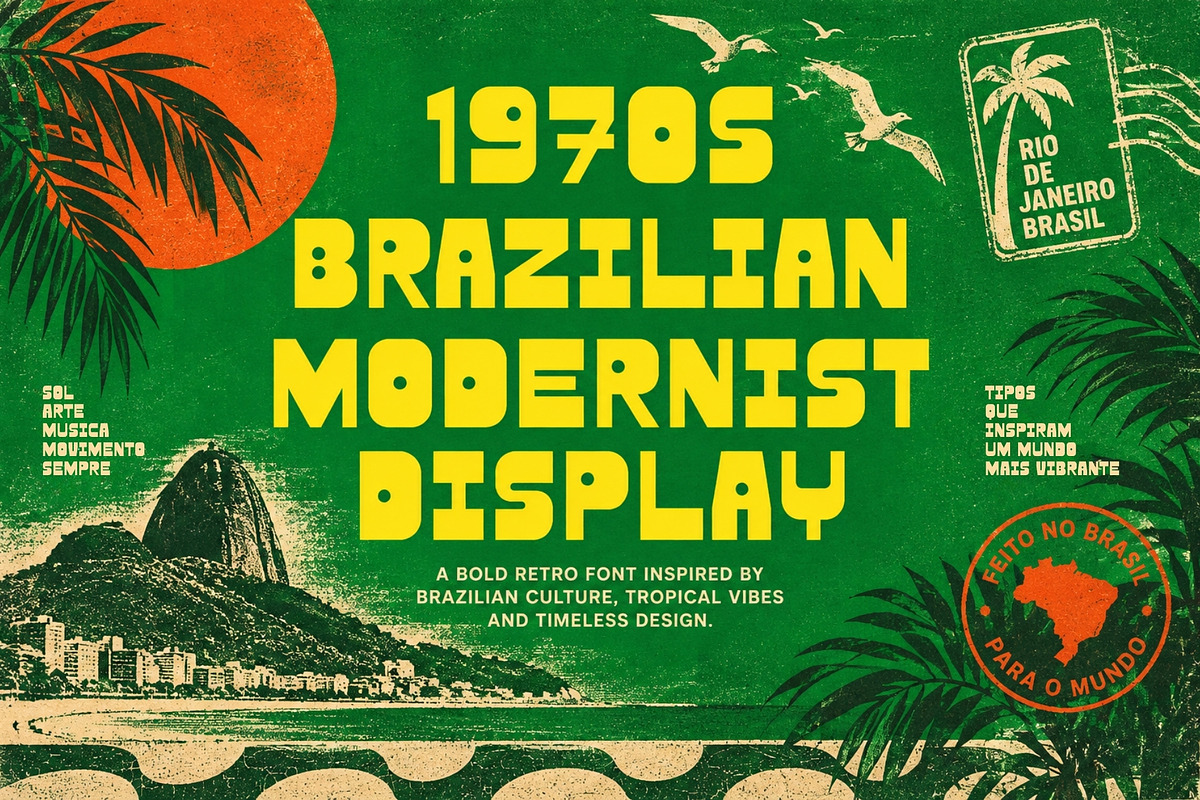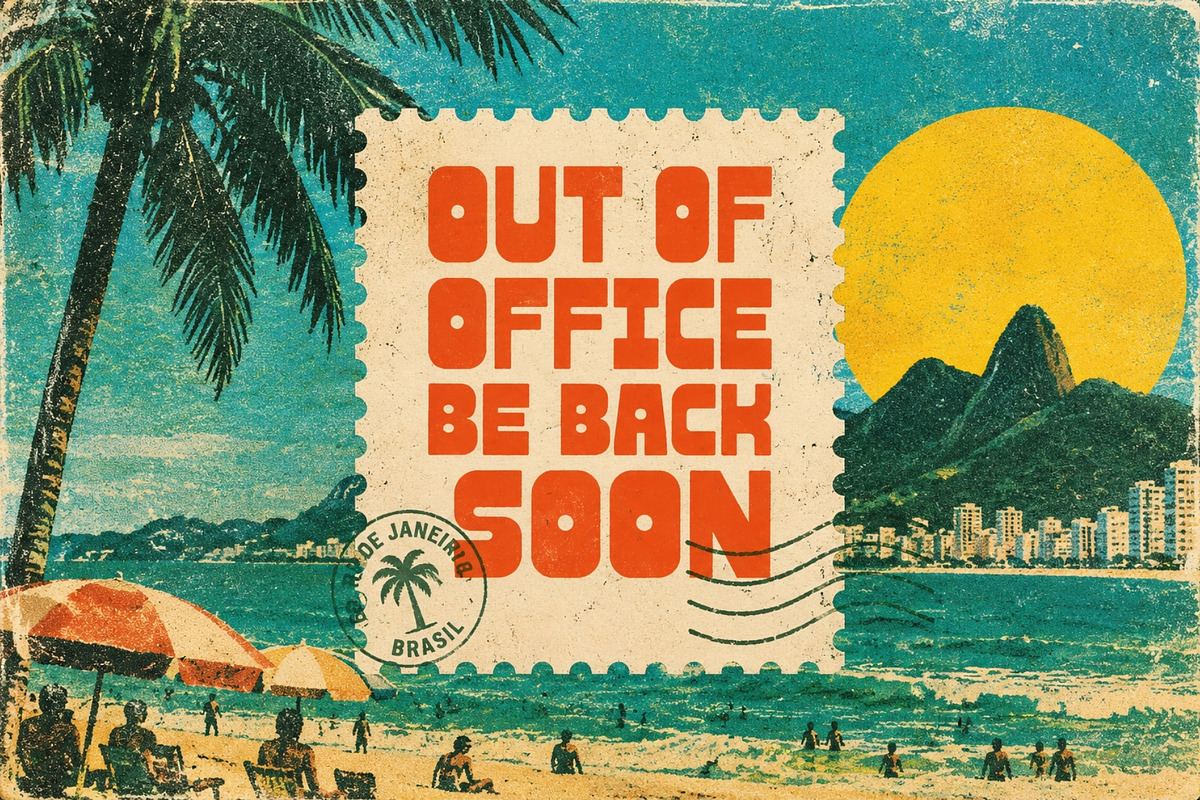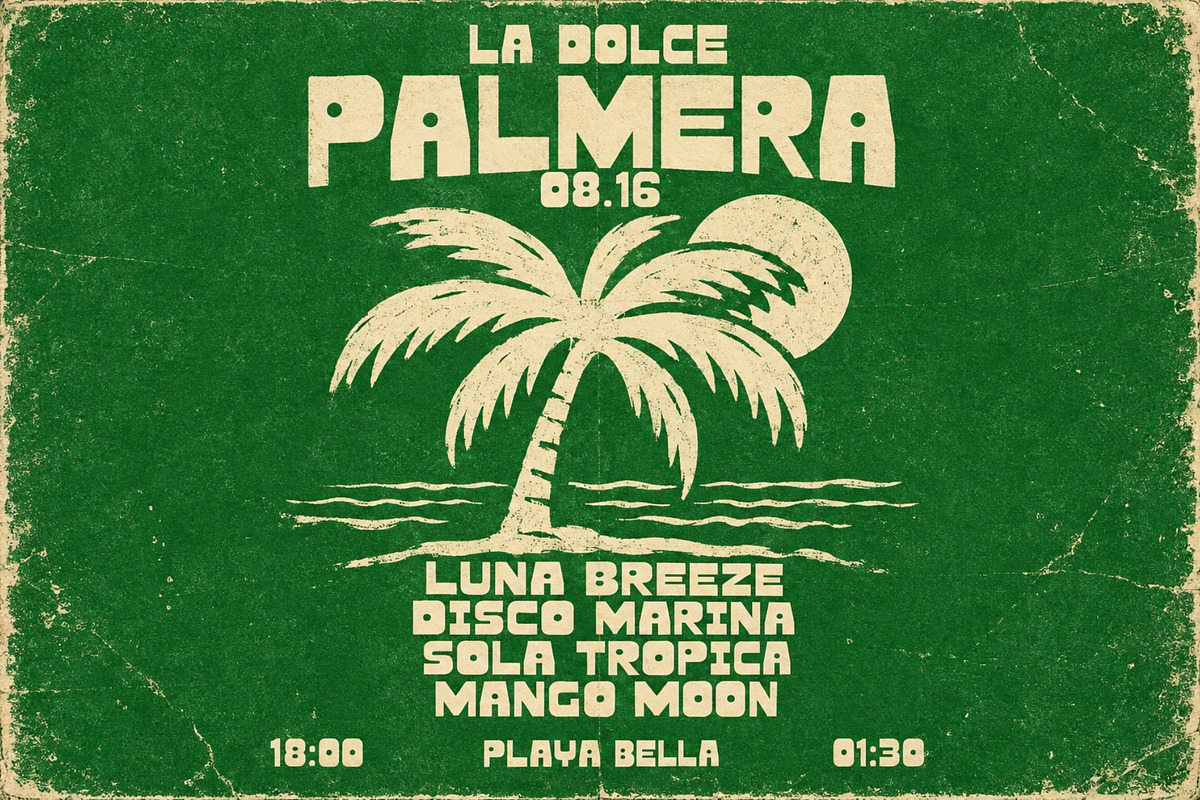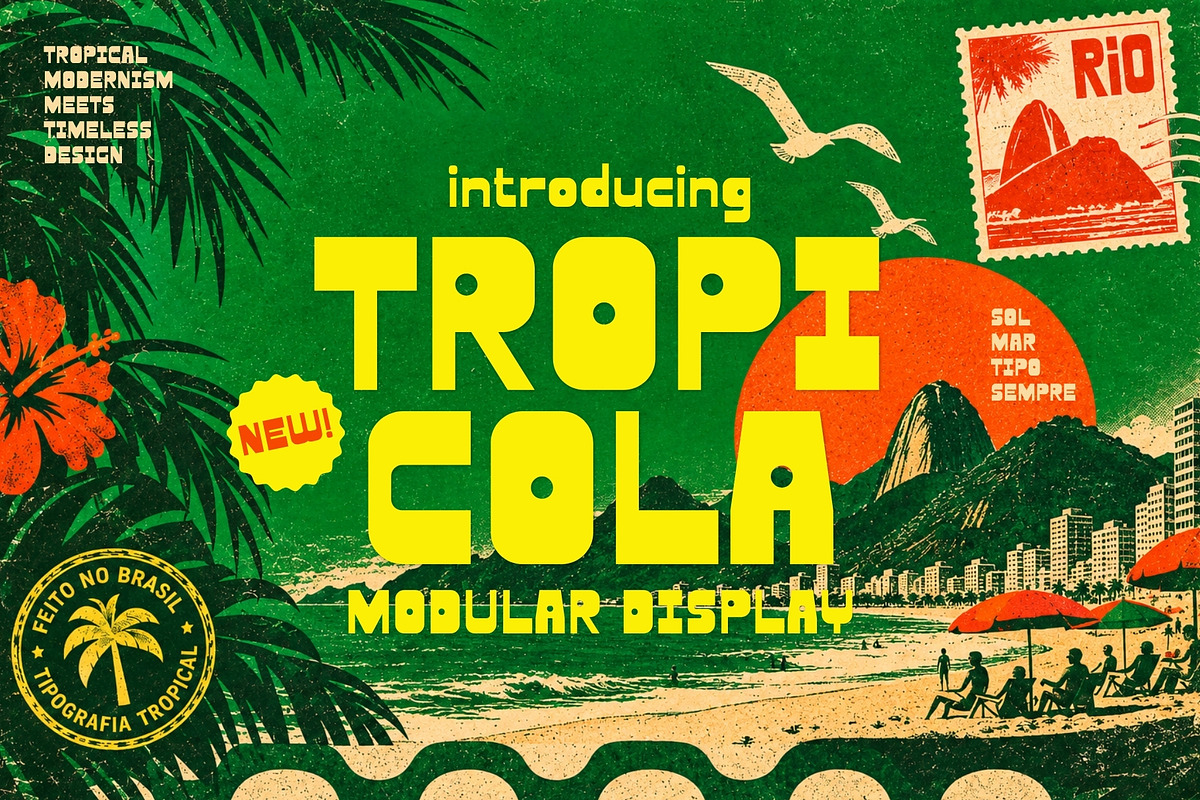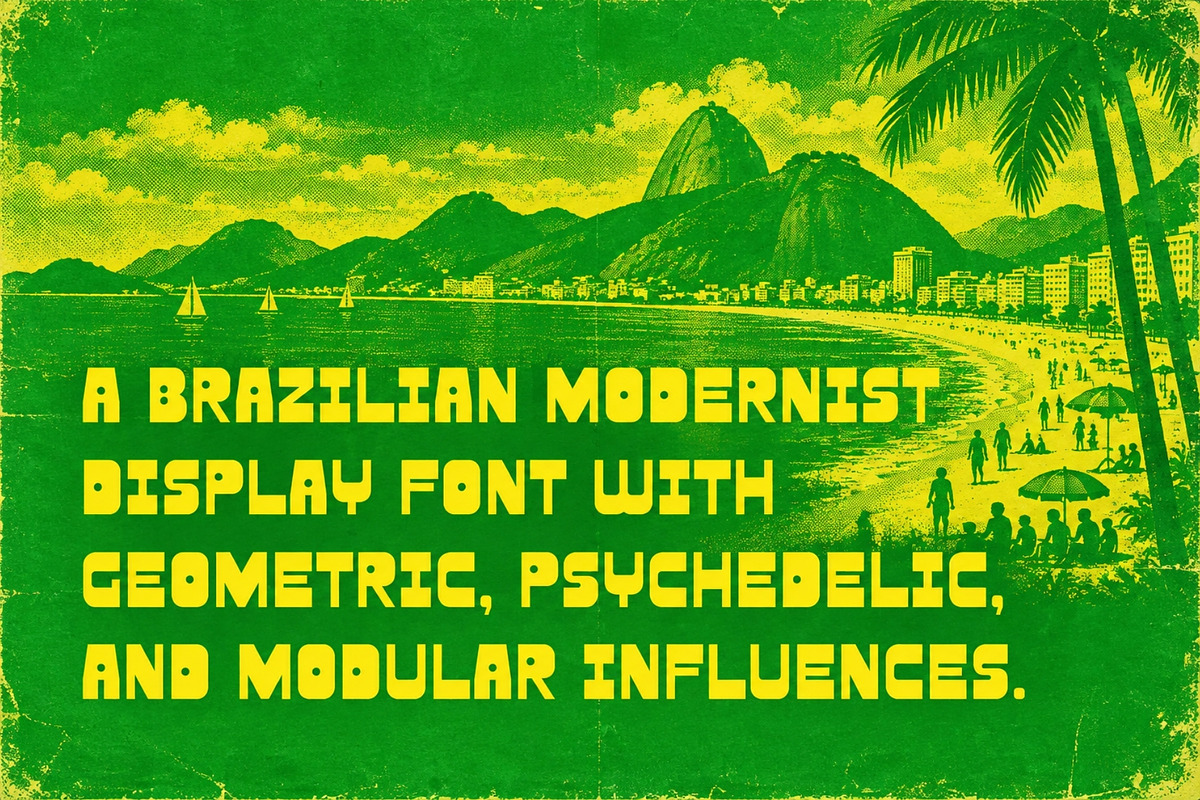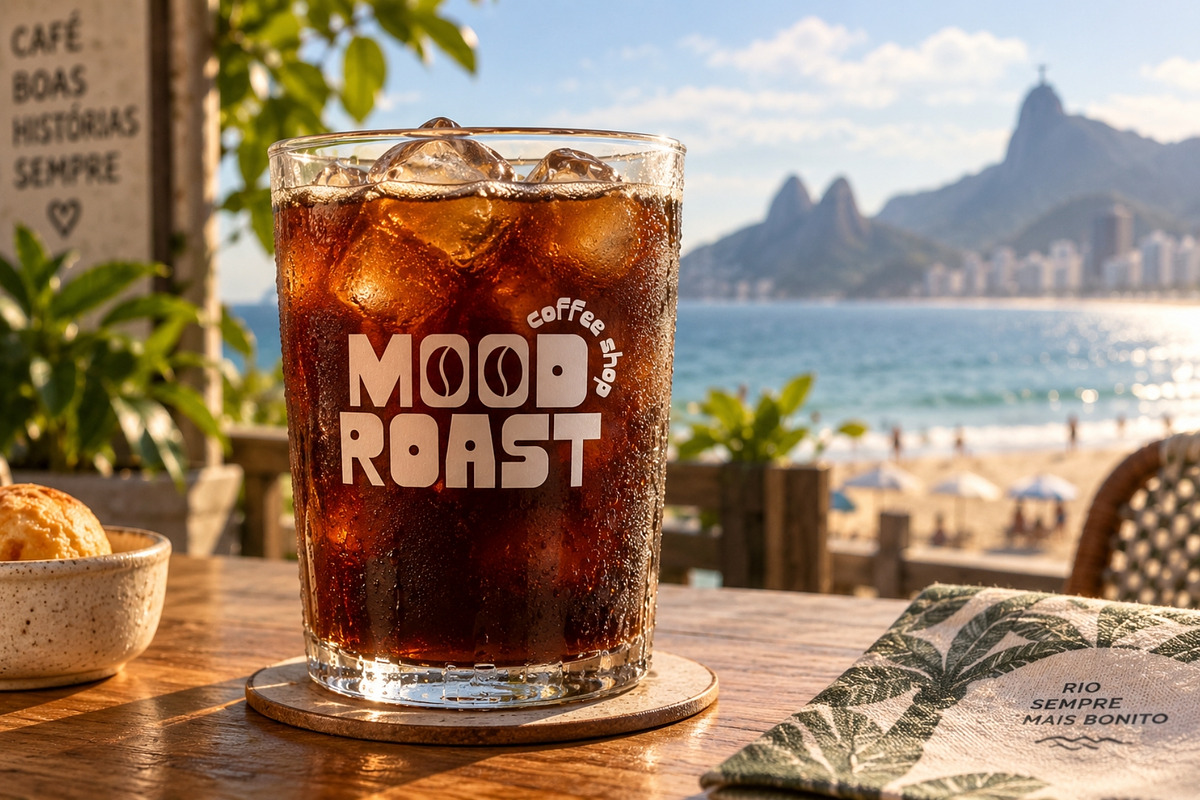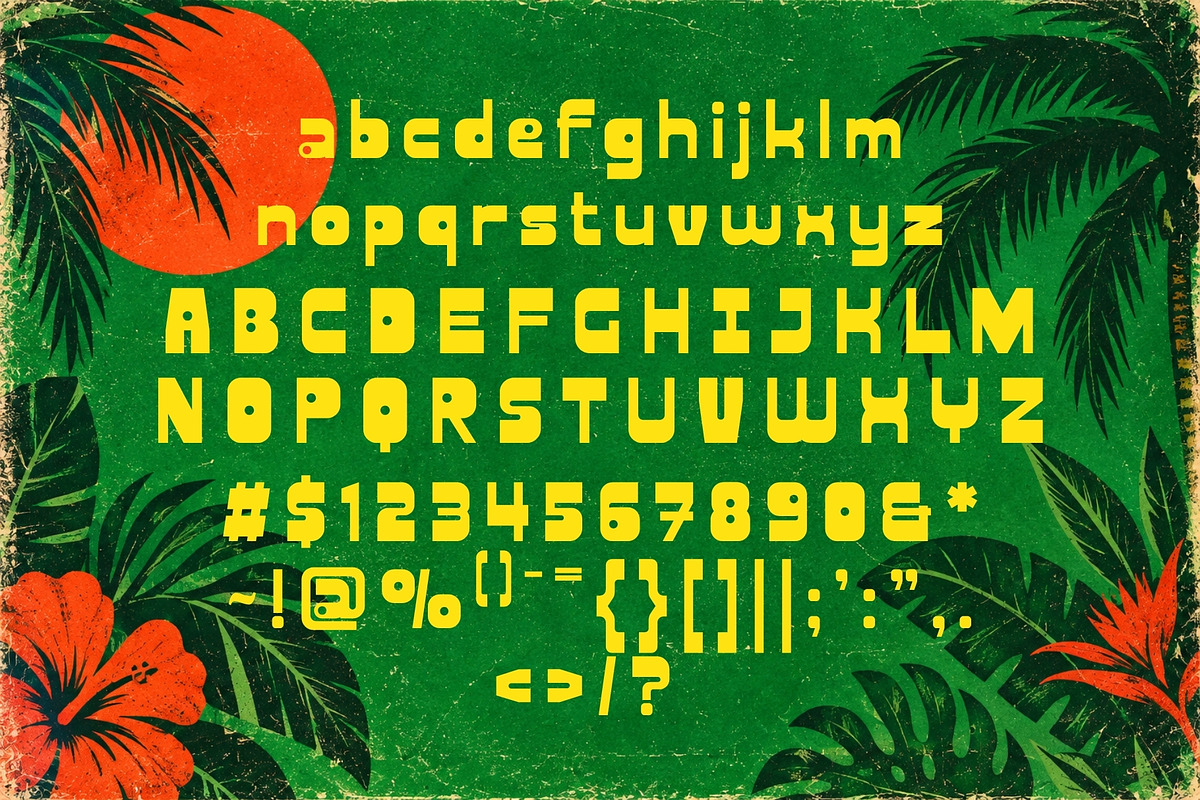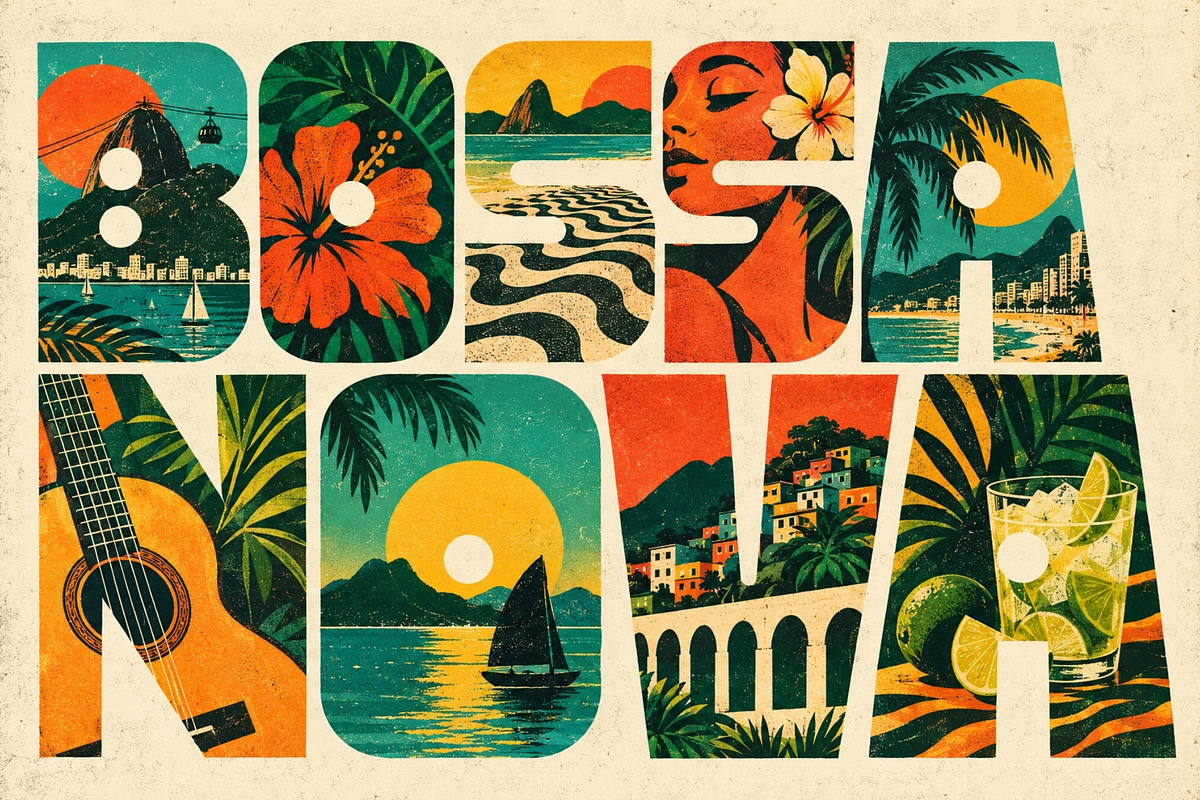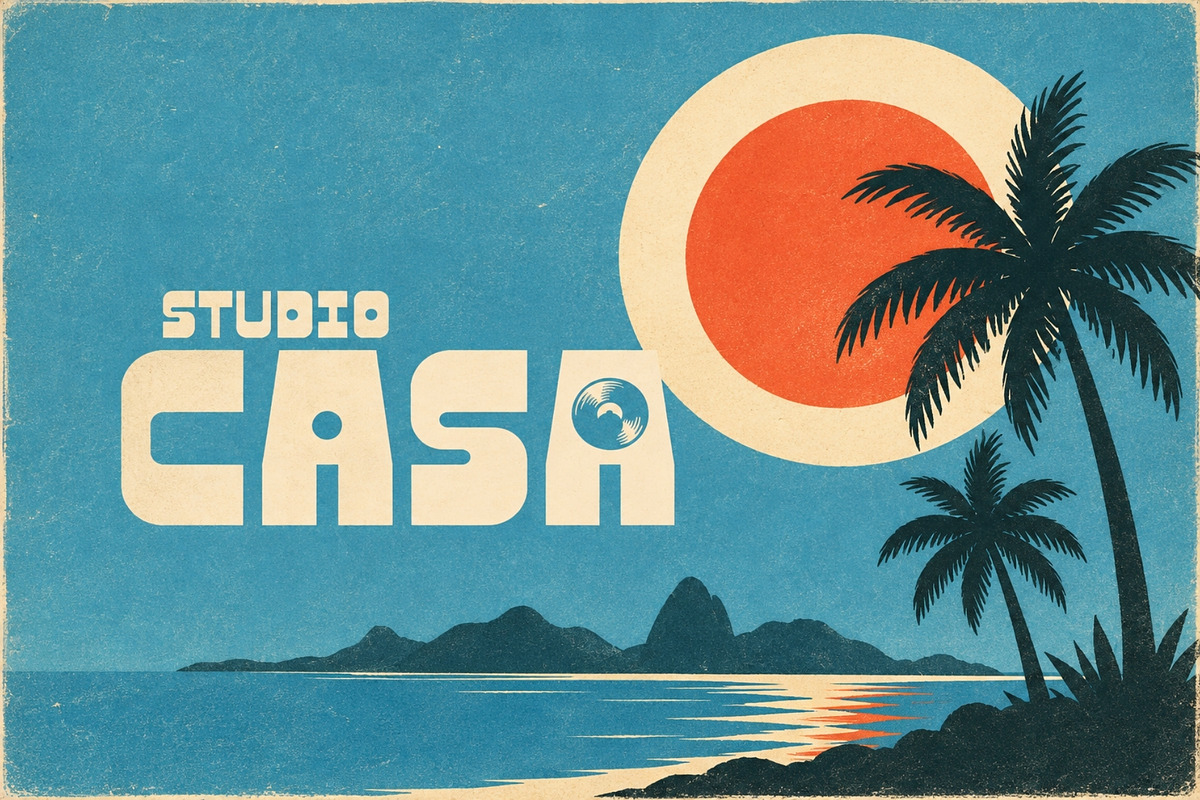
Tropicola - 1970's Brazilian Display
Meet Tropicola, a bold 1970s-inspired display typeface rooted in Brazilian modernism, tropical graphic design, and the expressive visual culture of vintage posters and record sleeves.
Built from chunky geometric forms, Tropicola balances heavyweight construction with an unexpectedly playful rhythm. Rounded corners, circular counters, oversized cutouts, asymmetric details, and sculptural negative space soften its blocky silhouette and give every letter a distinctive, almost architectural personality.
The result feels somewhere between Brazilian modernist poster design, psychedelic typography, Bauhaus experimentation, tropical pop art, and 1970s editorial graphics. It is bold without feeling aggressive, geometric without becoming cold, and retro without looking like a simple reproduction of the past.
Tropicola is designed for projects that need typography to become part of the artwork itself. Its unusual forms work especially well across posters, logos, album covers, record sleeves, fashion branding, packaging, editorial layouts, advertisements, restaurant identities, festival graphics, apparel, social media campaigns, and travel-inspired designs.
At large sizes, its oversized counters and unexpected internal shapes create striking compositions of their own. Pair Tropicola with saturated tropical color, grainy photography, collage, abstract illustration, vintage textures, or clean modern layouts to push the personality in completely different directions.
Whether you're designing a sun-soaked cultural poster, a funky record sleeve, an experimental fashion identity, or a brand that simply refuses to look ordinary, Tropicola brings warmth, rhythm, optimism, and a little beautiful weirdness to every word.
Bold. Tropical. Geometric. Made to be seen.